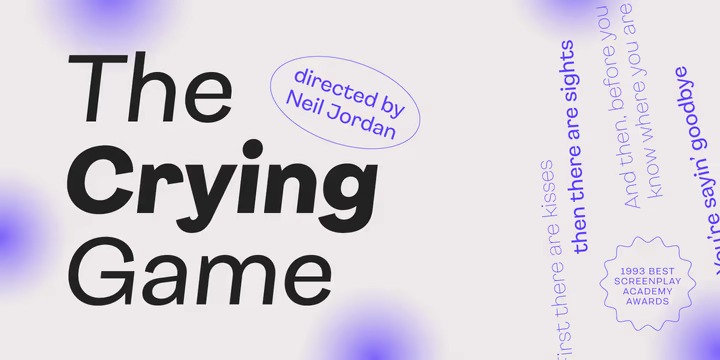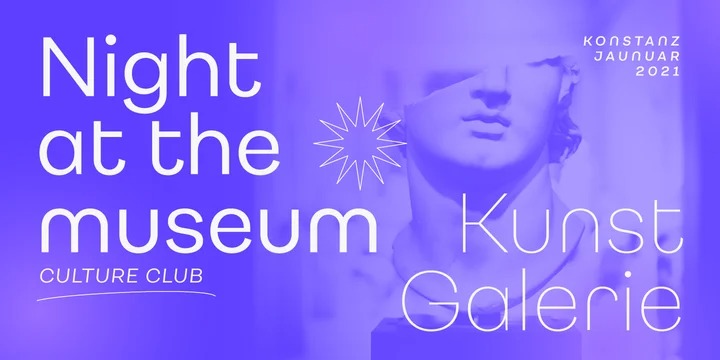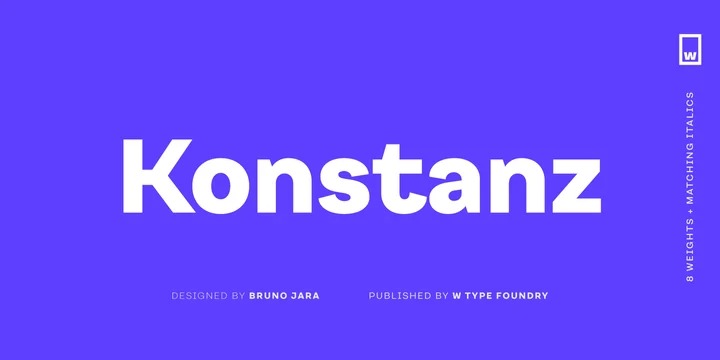
Konstanz Font Family
Konstanz Sans Serif Font
It’s a modern sans serif typeface family (16 fonts) designed with carefully handcrafted. Inspired by the design of books and magazines for museums, art galleries, design biennials, architecture, and theater, among others. Its design focuses on a grotesque aesthetic but brings back certain shapes from Bauhaus and Futura. Konstanz includes 8 weights plus its matching italics, besides a stylistic set that increases its use possibilities. Konstanz ensures a graphic with a high impact and is ideal for designing editorial projects, posters, branding, and advertising.